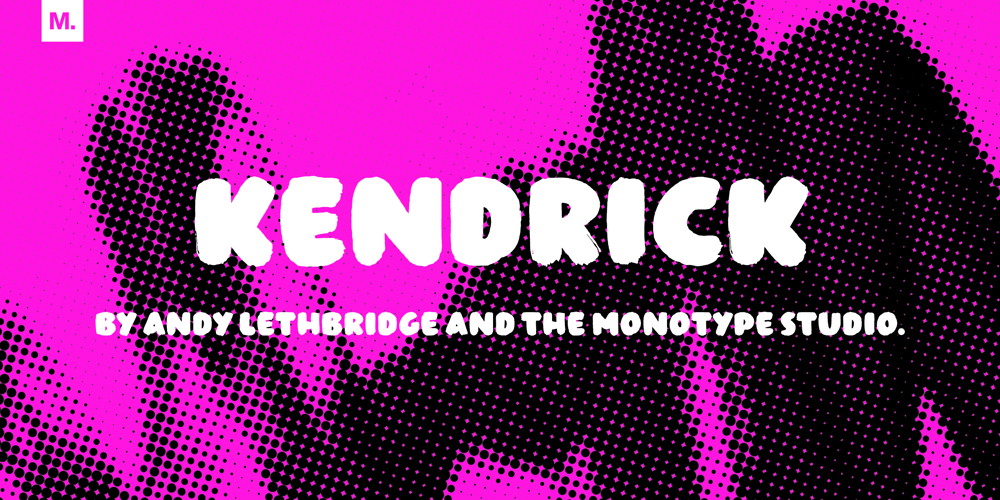
Kendrick Font Family was designed by Andrew Lethbridge and published by Monotype. Kendrick contains 1 styles and family package options. A heavy-set but lively font, Kendrick’s dense strokes were hand-painted using a thick wet brush. This all-caps set of letters is bold but brushy, textured and expressive; fun but very much meaning business. Kendrick is streetwise and no-nonsense, but with a big cheesy grin to boot.